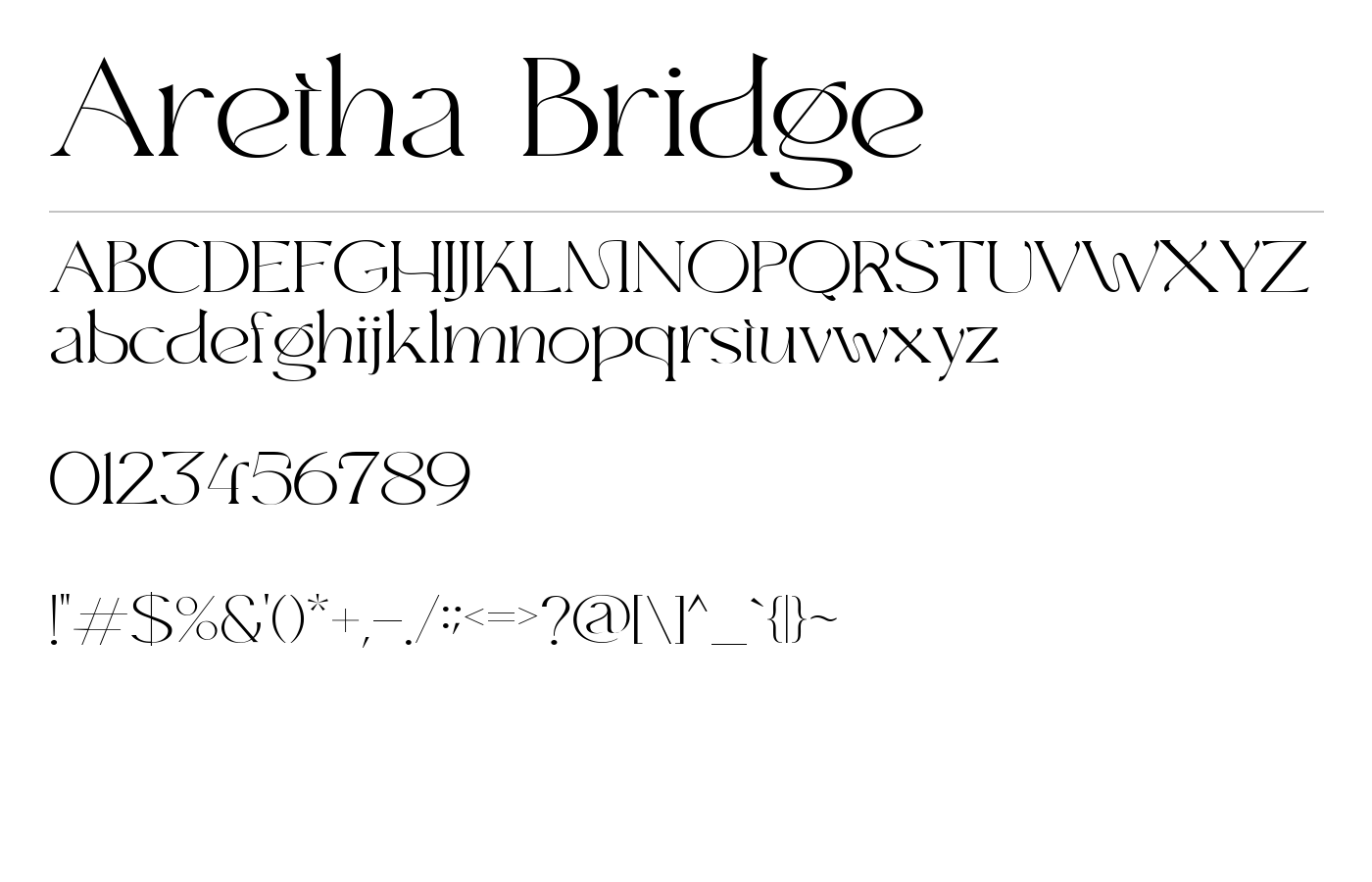
Aretha Bridge is an elegant serif font with a high contrast between thick and thin strokes, featuring delicate, sharp serifs and artistic letterforms that combine modern sophistication with a graceful, almost calligraphic feel. Its unique details, such as the stylized terminals and refined curves, make it ideal for luxury branding, editorial headlines, and upscale packaging where a distinctive, refined aesthetic is desired. This font shines in designs that require a blend of elegance and creativity, capturing attention with its airy yet precise character.
Aretha Bridge Font
About Aretha Bridge Font
| Font family | Aretha Bridge Font |
| Designer | 177Studio.com |